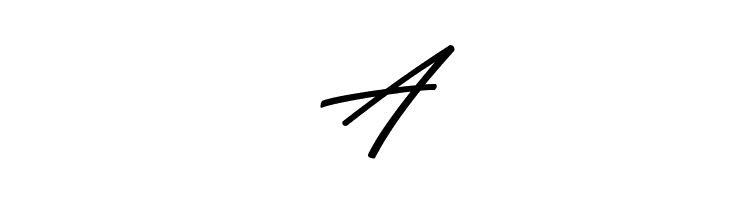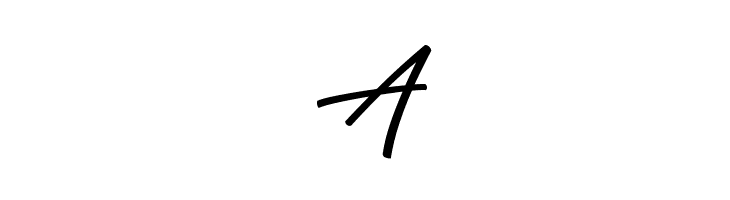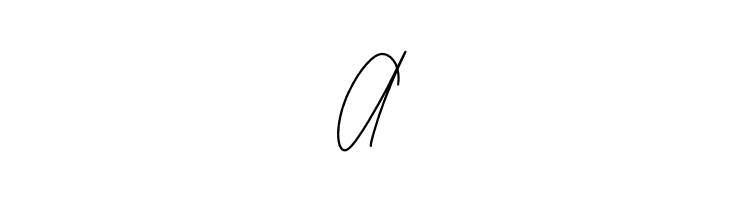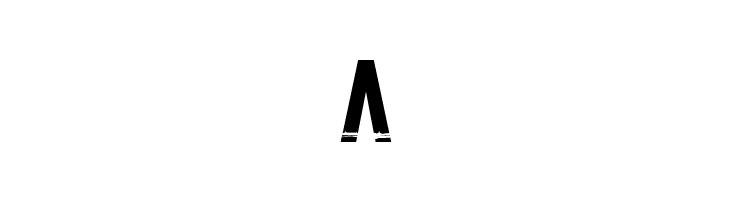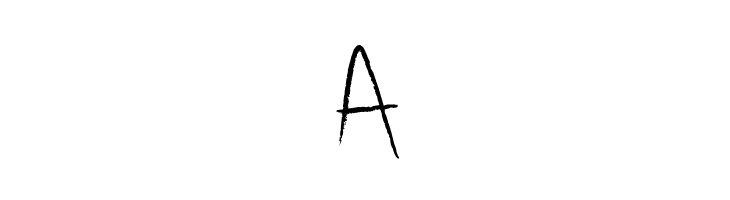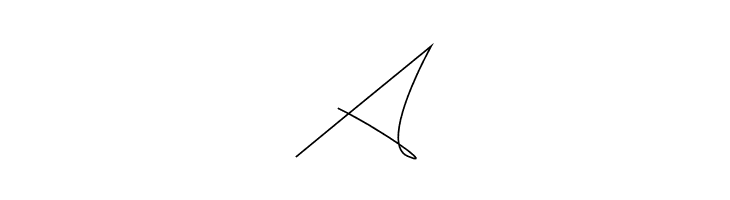
• Battenberg and Custard Bold
A playful, rounded, and bold font with smooth curves and a friendly appearance.
A playful, handwritten-style font with rounded, slanted characters.
• Battenberg and Custard Italic
A playful, handwritten-style italic font with rounded, smooth strokes.
• Battenfill
A graceful, cursive script font with a natural handwriting style.
• Batteny Personal Use
A bold, expressive script font with a modern, handwritten style.
• Batter Up 3D
A bold, 3D font with a vintage sports theme and shadow effect.
• Batter Up Outline
A bold, outlined font with a vintage sports aesthetic.
• Batter Up Regular
• Batter Up Regular Demo
A bold, vintage slab serif font with a strong, nostalgic appeal.
• Batterlife Personal Use
A lively handwritten font with fluid strokes and playful curves.
• Batternia
A modern, elegant handwritten font with fluid strokes and a dynamic slant.
• Battery Icons
Bold, geometric battery icons with clear, modern styling.
• Battgge
A dynamic, expressive handwritten font with fluid strokes and an artistic touch.
• Battic
A bold, flowing script font with elegant loops and a hand-drawn feel.
• Battiest Personal
A playful, bold script font with a handwritten style.
• Battikaja
A playful, handwritten script font with medium contrast and a modern, decorative style.
• battilla
A playful handwritten font with fluid, flowing letterforms.
• Battina Regular
A lively and flowing script font with elegant curves and smooth strokes.
• Battle Andy
A bold, dynamic script font with fluid, connected letterforms and a modern flair.